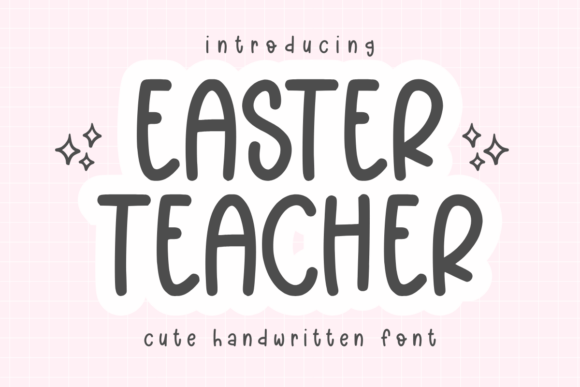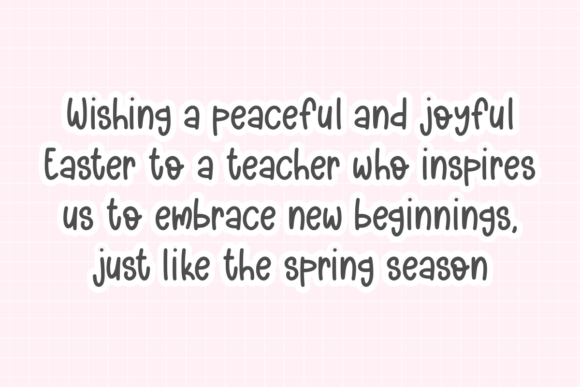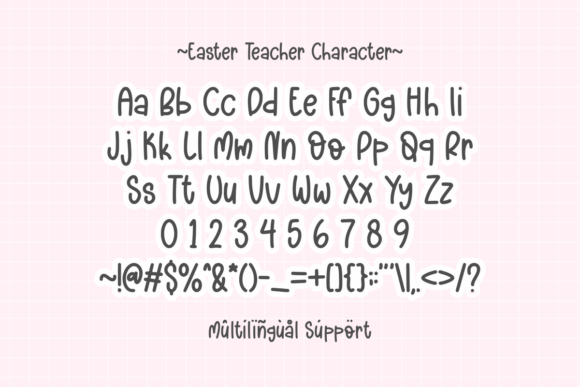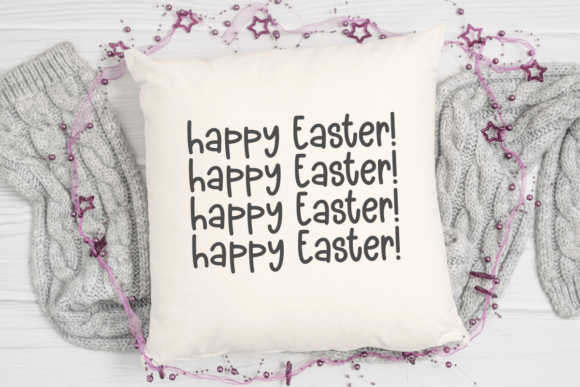
Easter Teacher Font
About the Easter Teacher Font
Welcome to the world of Easter Teacher Font, a typeface that will inspire your next great project. Easter Teacher is a cute and playful handwritten font, perfect for planners, stickers, cards, quotes, and craft projects. Ideal for creative moms who love DIY, journaling, and Cricut crafts!
Its playful, handwritten style makes it particularly effective for projects requiring a touch of whimsy, such as children’s book illustrations, branding for craft businesses, or packaging for handmade goods. It also works well in short social media posts or invitations. However, avoid using Easter Teacher for large bodies of text or UI elements; its informal nature makes it less legible for extended reading.
Pair Easter Teacher with a clean sans-serif font like Open Sans for a balanced contrast, or a more structured serif font such as Lora to add a touch of sophistication. For a more playful combination, consider pairing it with a geometric sans-serif font for a modern and vibrant feel.
Easter Teacher projects a friendly, approachable personality, ideal for brands targeting a young, creative audience. Its informal style conveys warmth and approachability, making it unsuitable for projects demanding formality or a professional, corporate image.
Easter Teacher Font Example